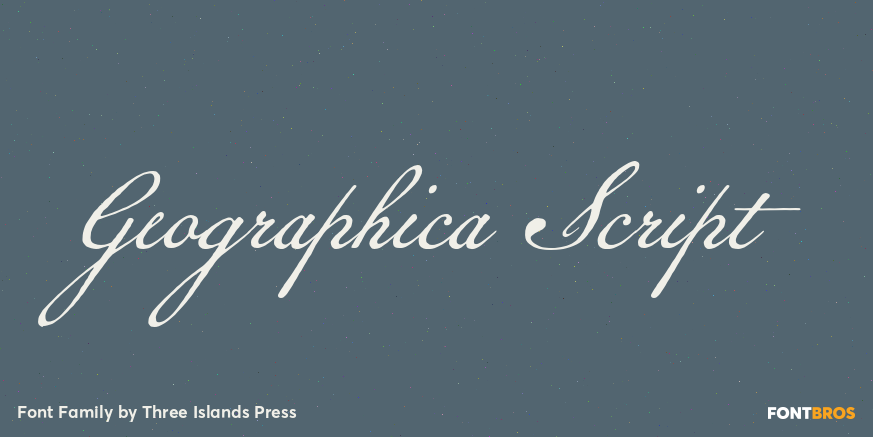
Geographica Script
About Geographica Script
Time-tested elegance is what you\’ll get with Geographica Script, a handwritten typeface steeped in 18th century sophistication. Source materials include the maps of Emanuel Bowen (circa 1694?1767), Geographer to King George II, as well as English and…